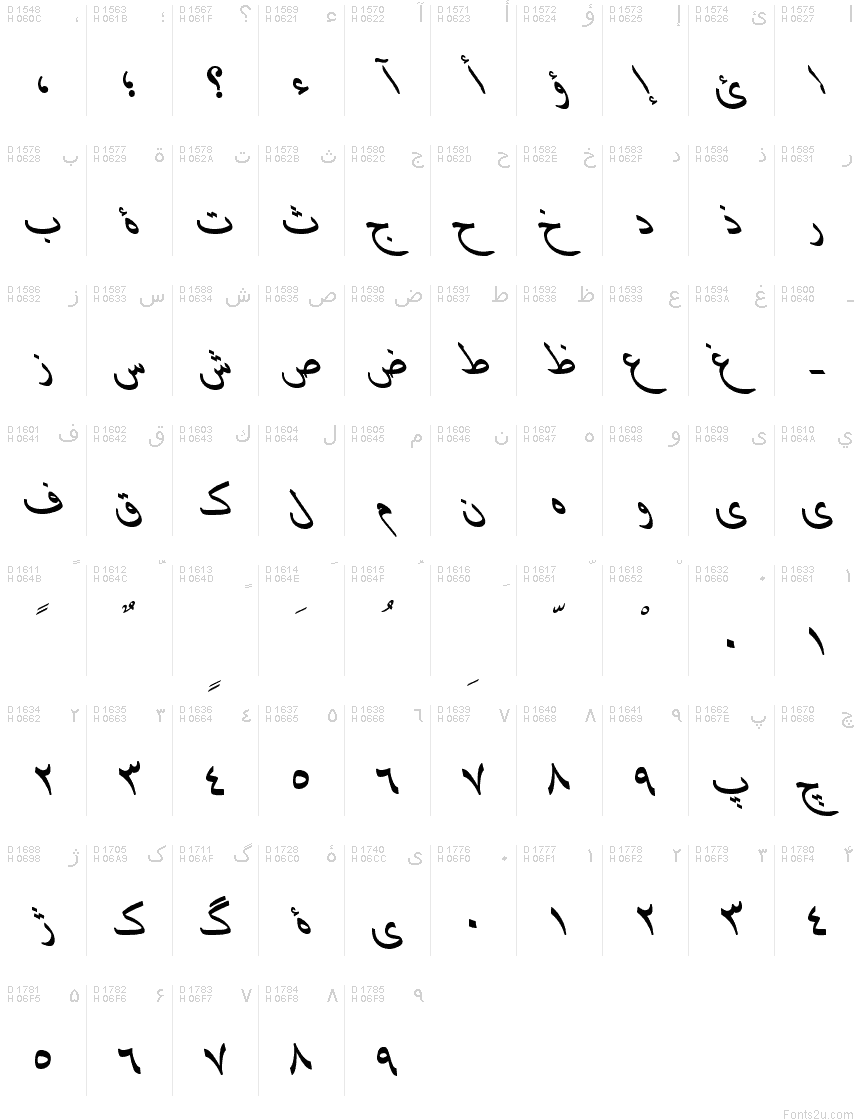
B Baran Italic
B Baran Italic font by Borna Rayaneh is a free Arabic typeface with a lively, handwritten twist. Letters lean forward with an easy slant, as if brushed quickly across paper, while the rounded counters and soft, inky curves give each word a casual, human warmth. Within the B Baran family, this italic style feels especially fluid and conversational, great when you want Arabic text that feels friendly rather than formal or rigid.
Using B Baran Italic, you can bring personality to children’s book titles, product packaging, social media graphics, café menus, event posters, and playful brand logos. The relaxed rhythm and generous curves keep short phrases legible even at smaller sizes, but this free font really shines in larger headings where its character can breathe. Pair it with a clean geometric sans in Latin for supporting text to keep your layouts balanced and easy to read.